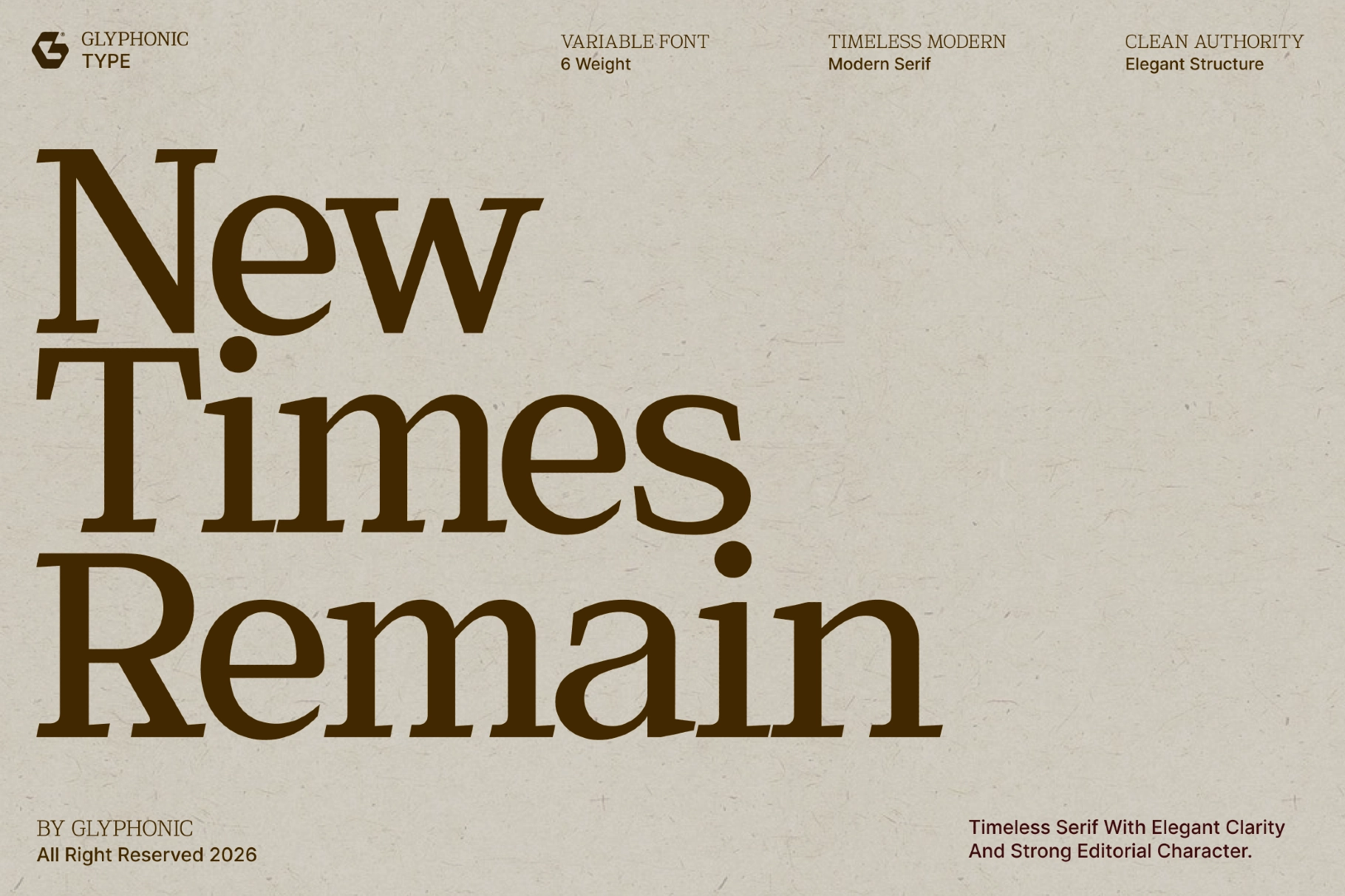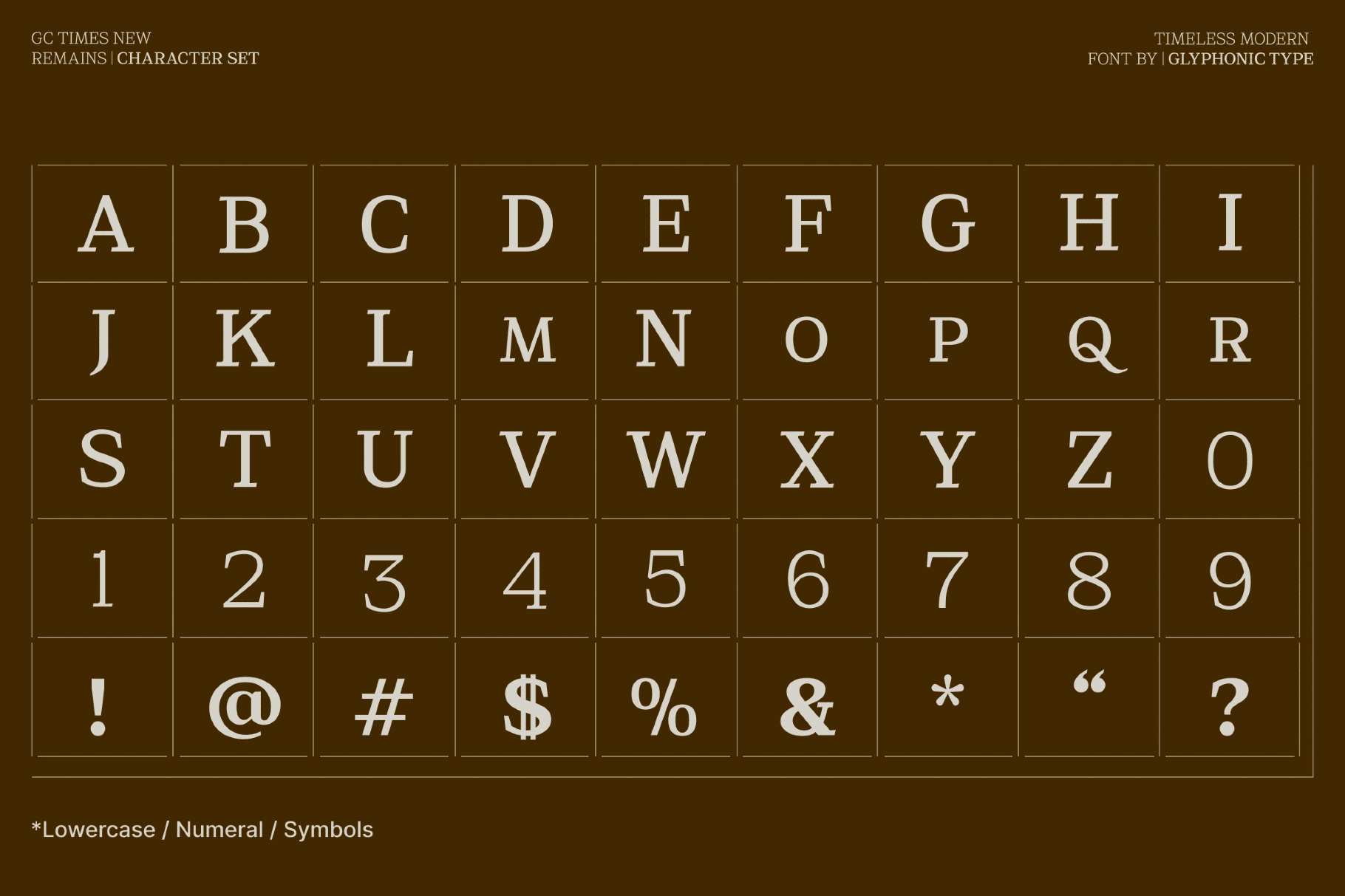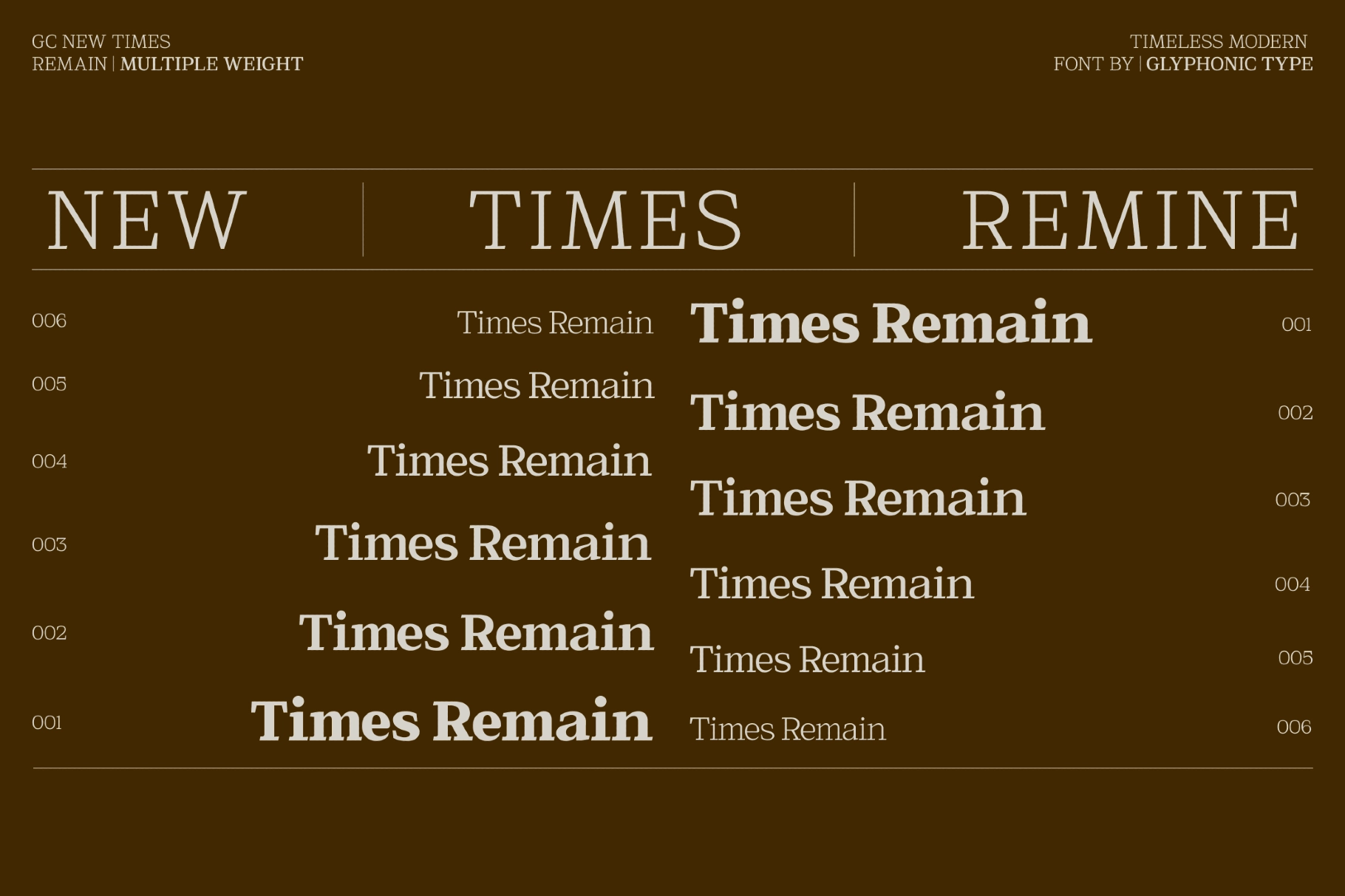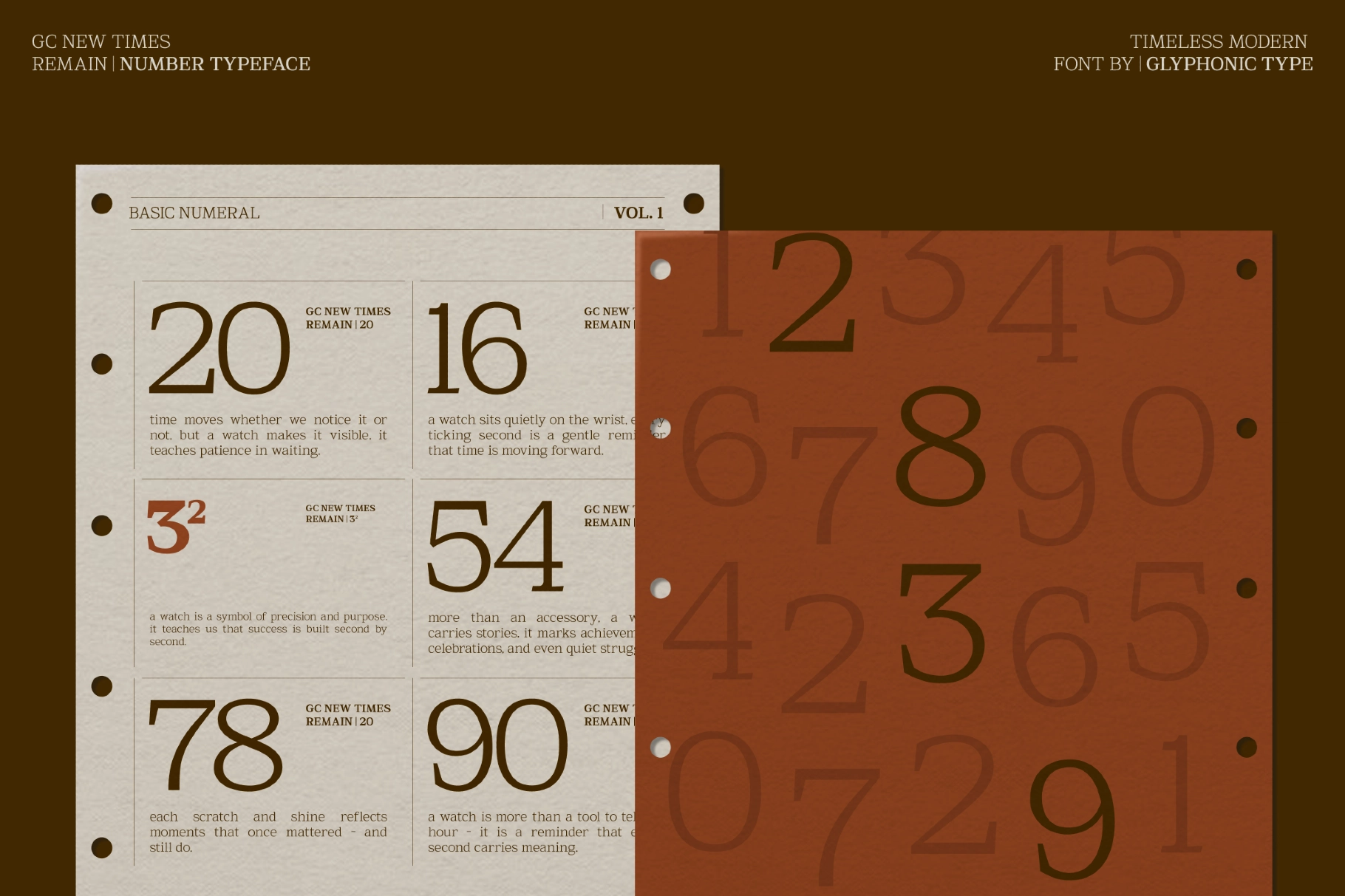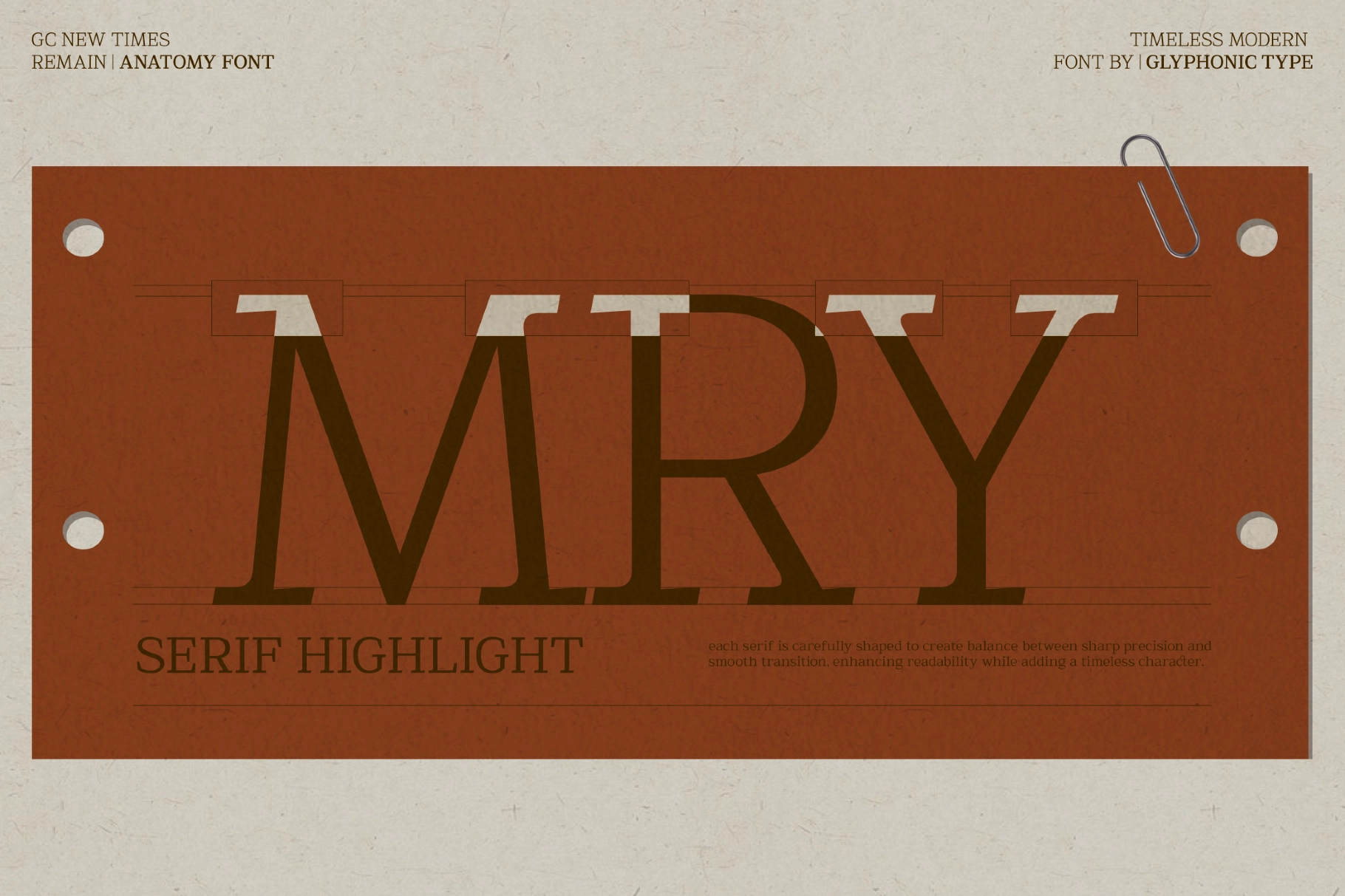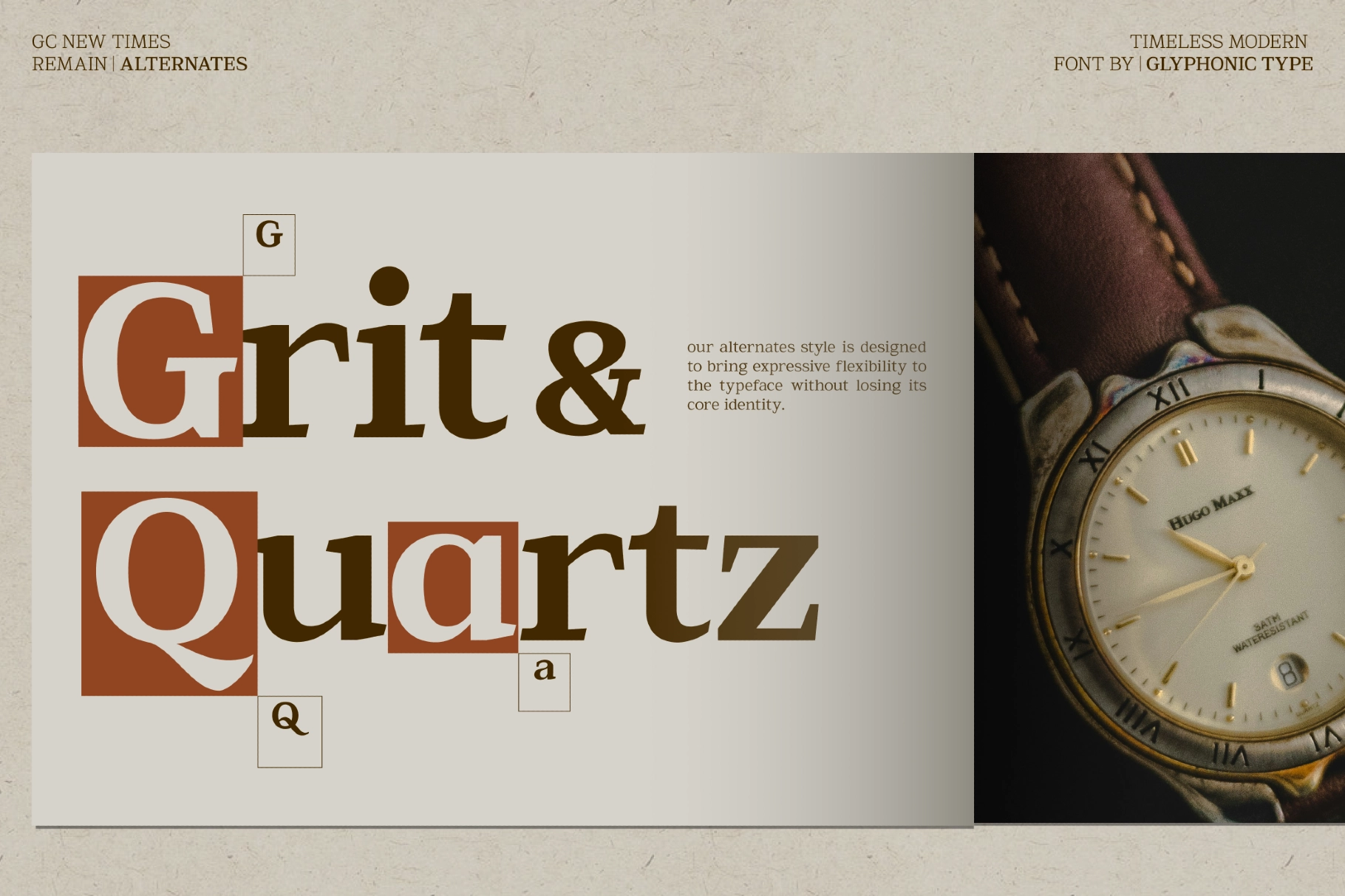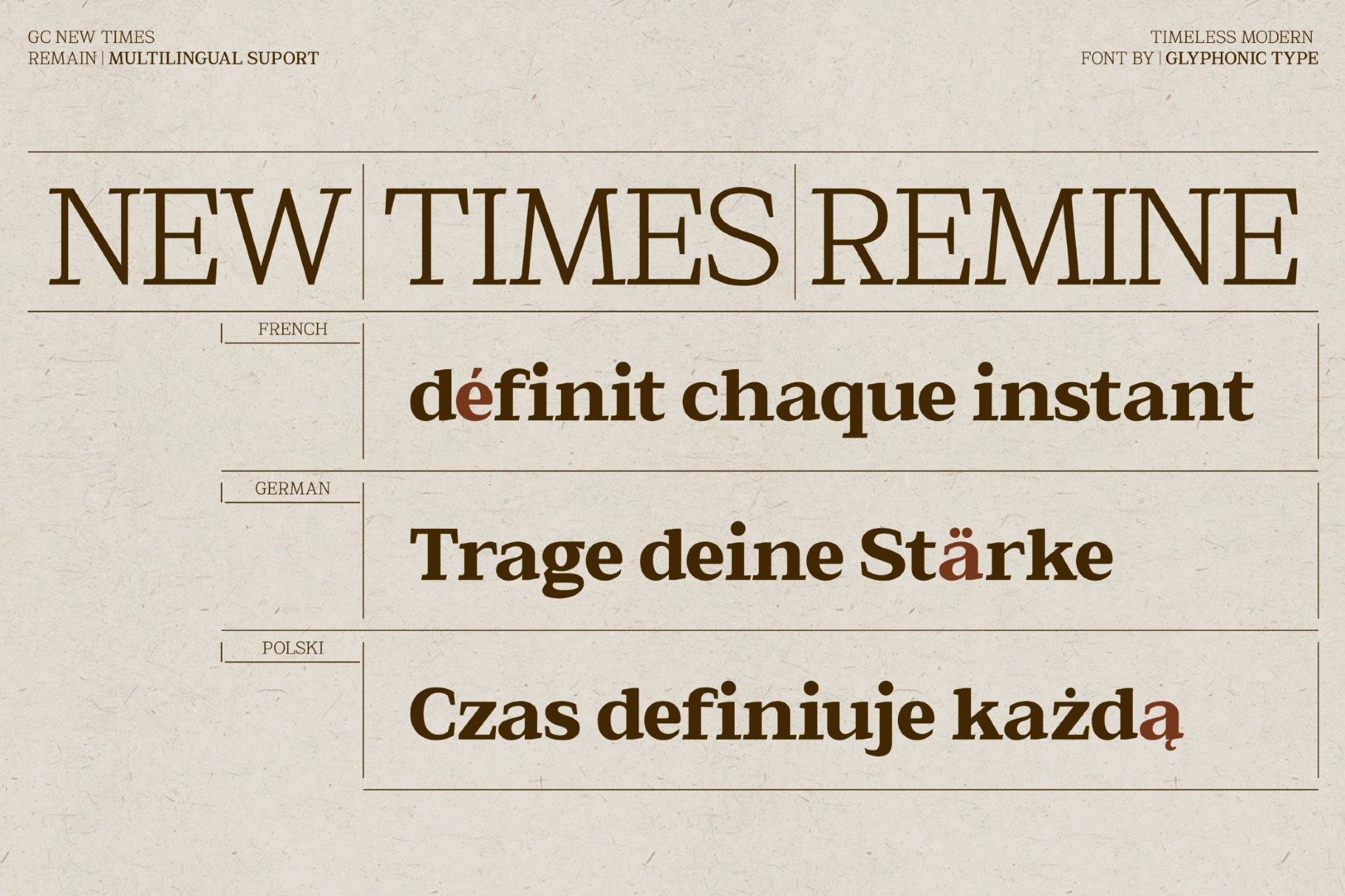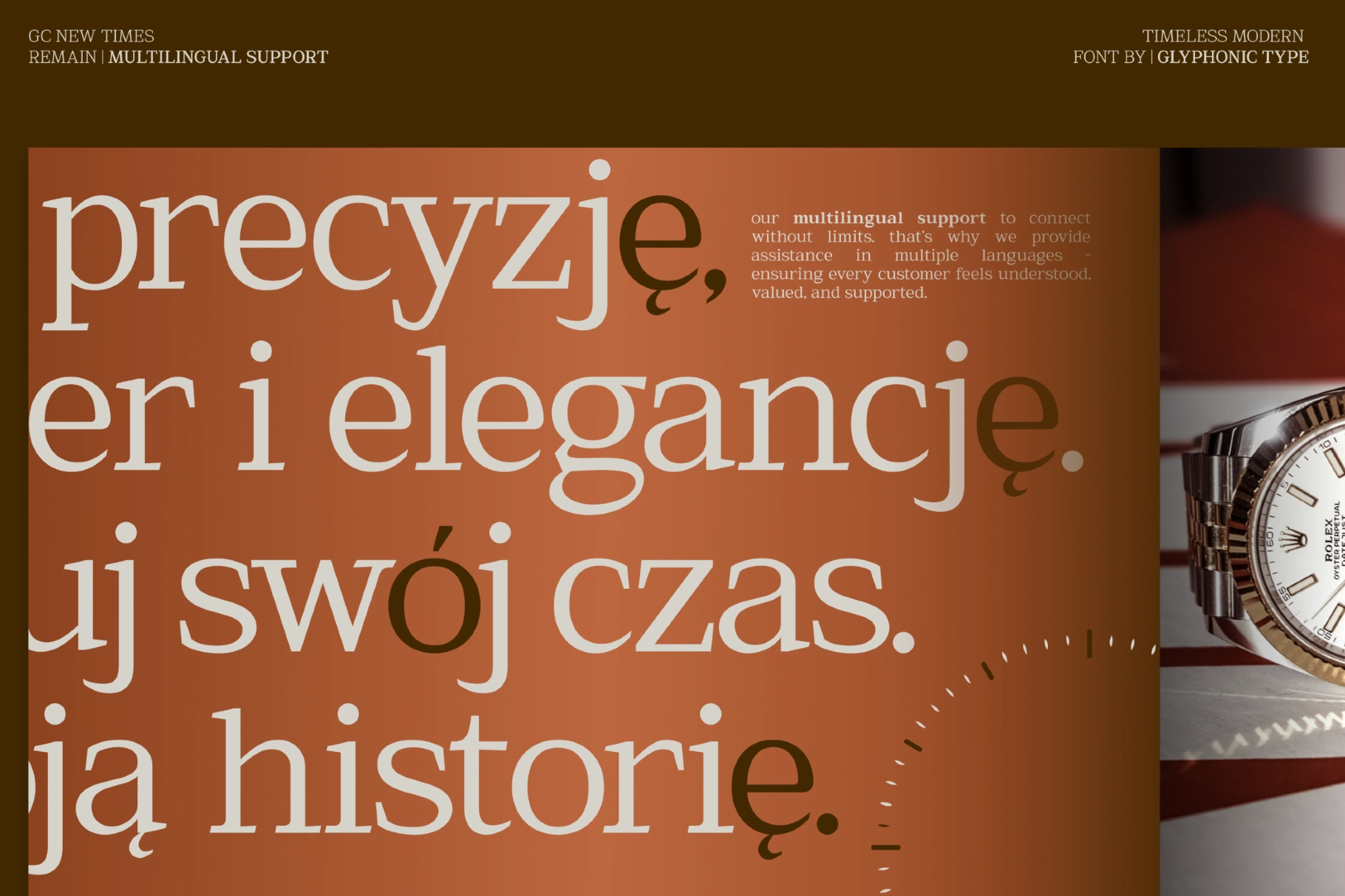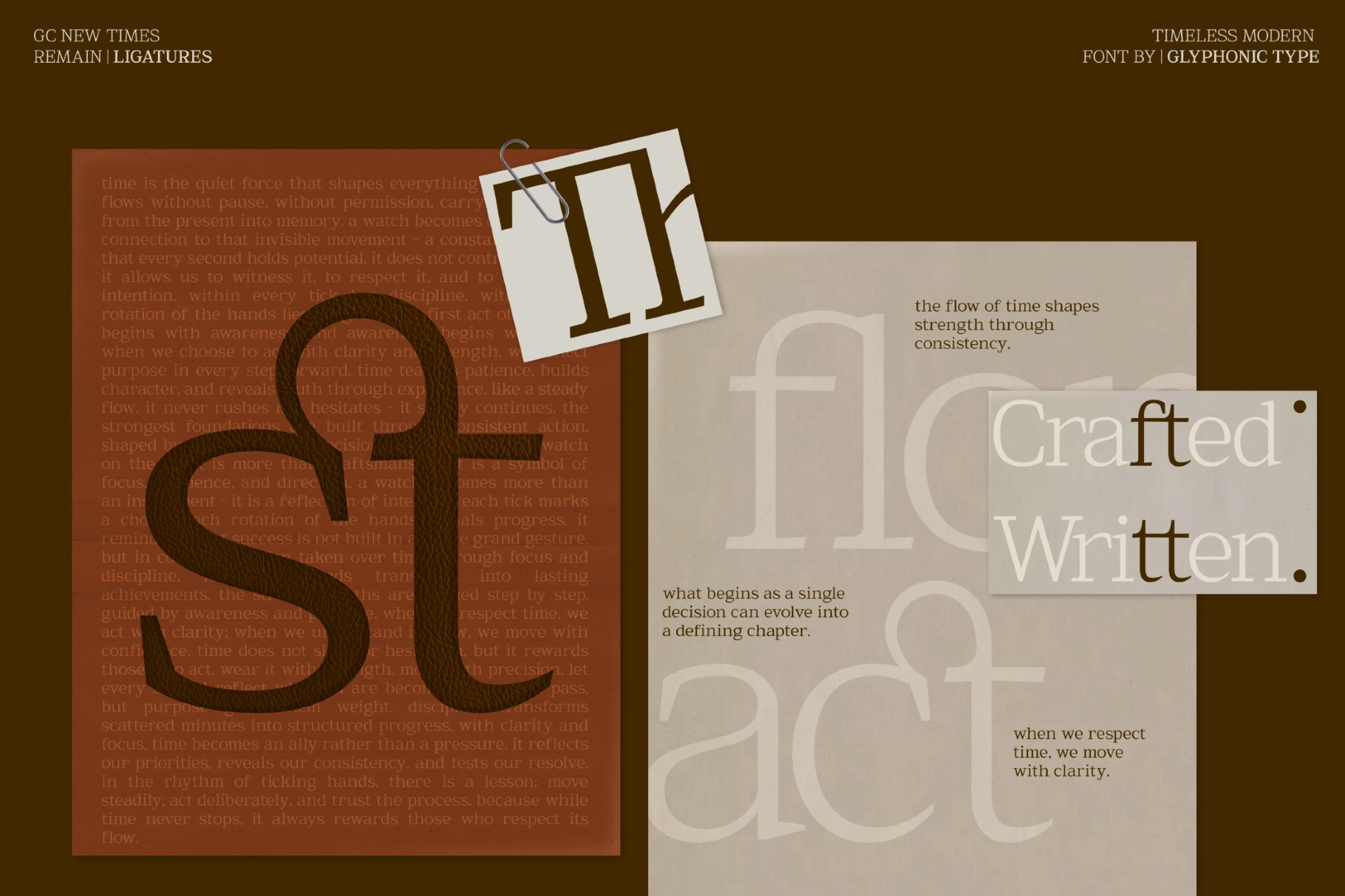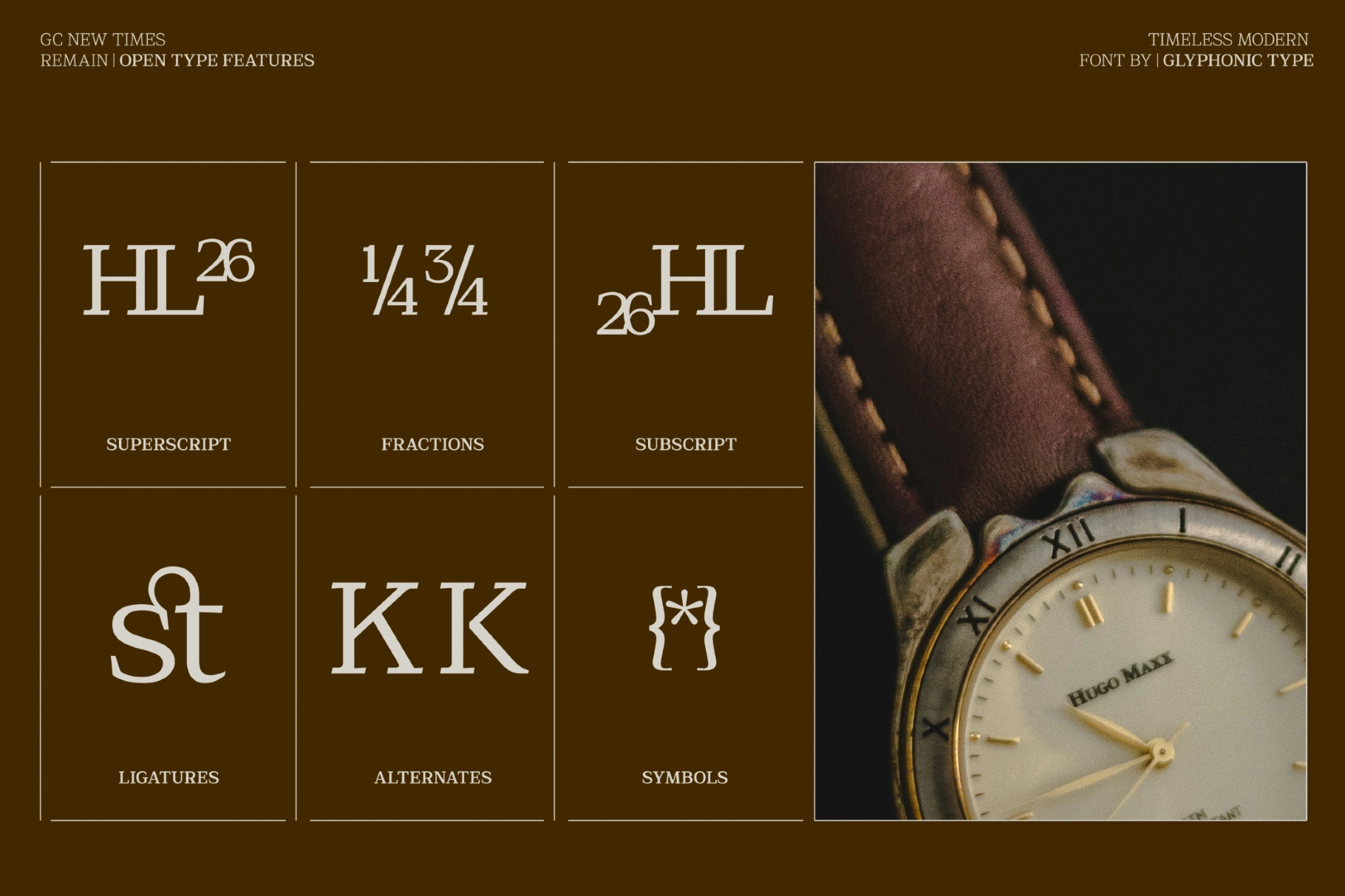
GC New Times Remain - Modern Serif Font
This serif typeface pairs high-contrast strokes with poised curves, crisp terminals, and a measured rhythm. The design has clear authority in large headlines, while its balanced proportions keep longer text sharp and composed. It is polished without sounding precious, which is useful when the layout needs manners and a backbone.
New Times Remain works especially well for magazine titles, luxury branding, book covers, watch campaigns, fashion editorials, packaging, art catalogs, restaurant identities, gallery posters, wedding stationery, publishing layouts, website headers, and refined social media graphics. Its six-weight variable setup gives designers room to set quiet captions, confident subheads, and commanding display type from the same typographic system.
- Variable Font with 6 weight options
- Multilingual support: 170+ languages